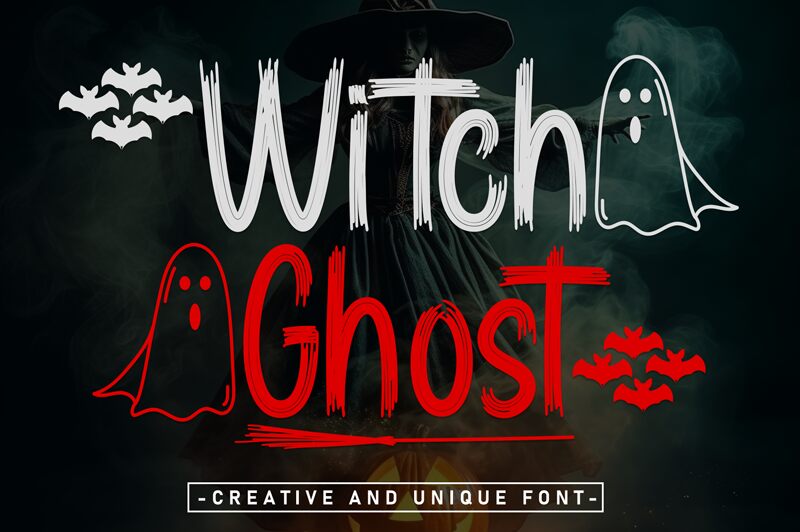
Witch Ghost
Witch Ghost font is a bone-chilling creation designed with a Halloween style by Andi Moz. This edgy and unconventional holiday font immediately puts you into the spirit of All Hallows' Eve, thanks to its eerie characters. Its appearance is a combination of grungy and distressed shapes that evoke fear into readers and show an extraordinary visual appeal. The letters have uneven thicknesses all over as well as sharp edges, spikes, cuts, unusual arches, and circular points.
Because it is a free Halloween font, you would save lots of costs when using it in your spooky invitations for trick or treat parties! Other uses include advertisement posters for horror movies or books whose legends mention ghost-related paranormal activities. Titles within any traditional vampire or witch story can certainly carry the font characters too. Alternatively, this typeface would seamlessly complement business cards for haunted hotels besides tasting menus at pharmacies selling dangerous brews brewed by witches!